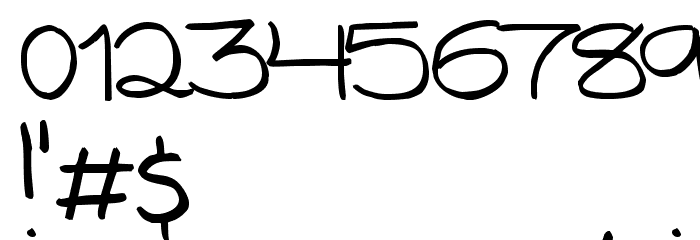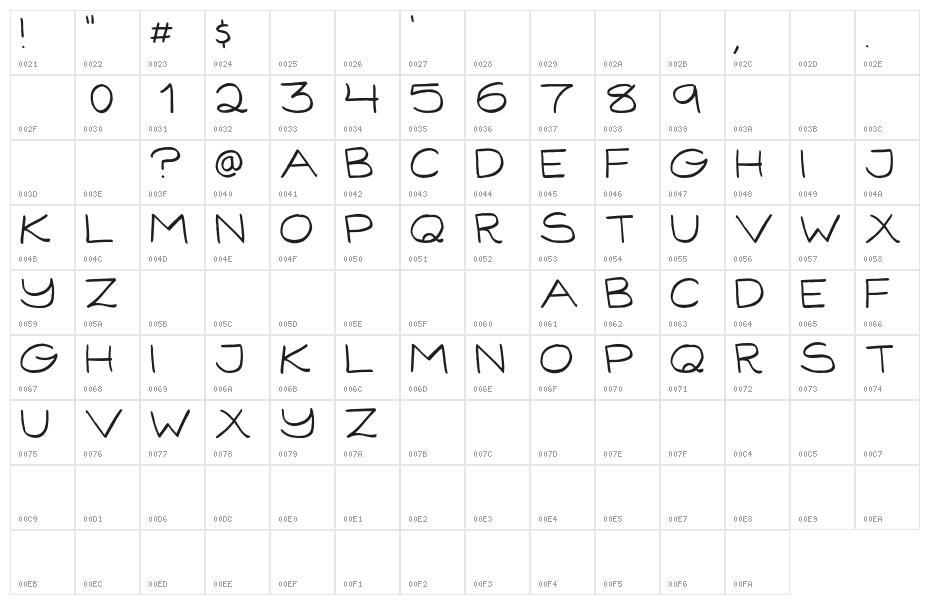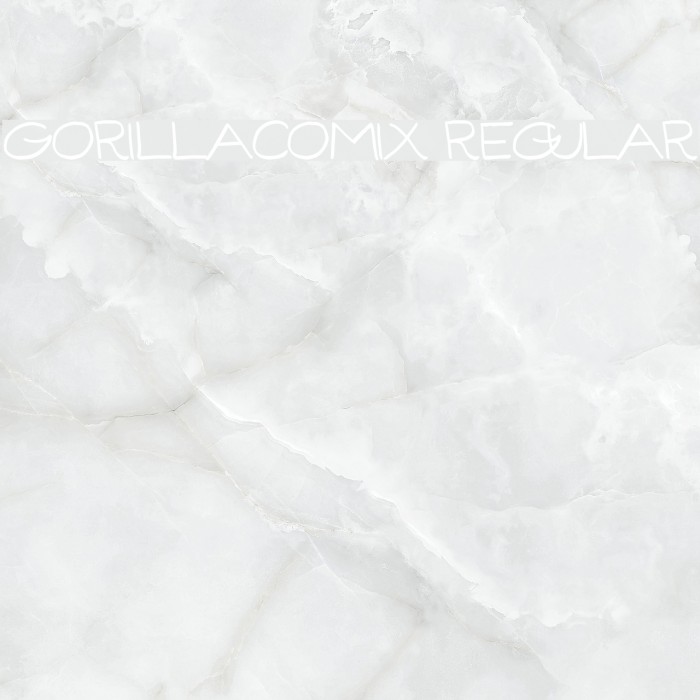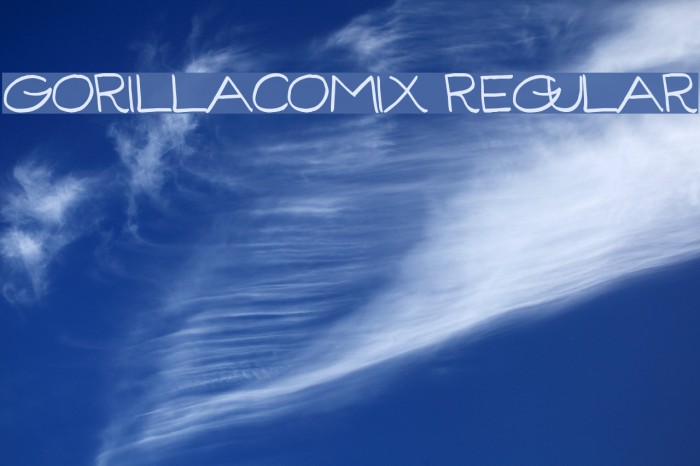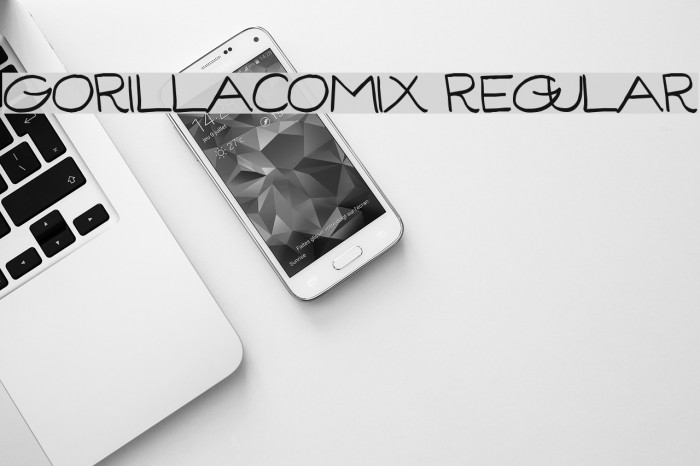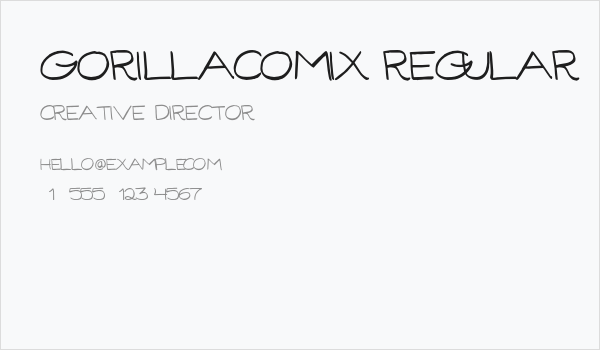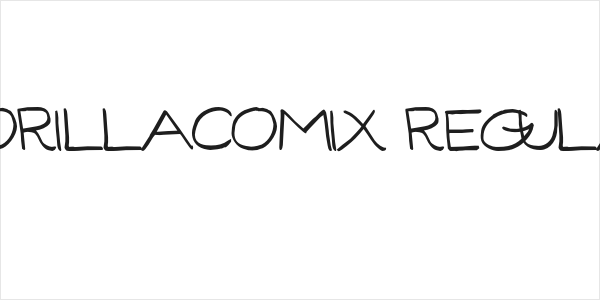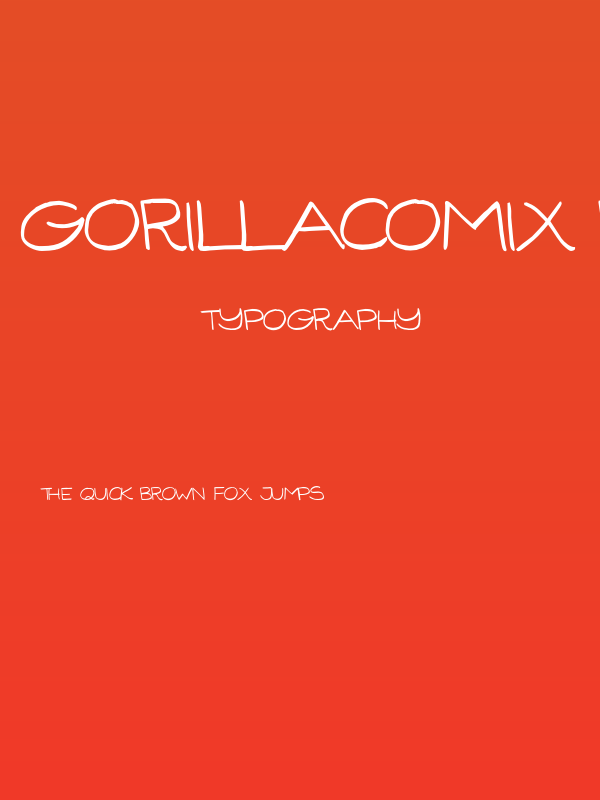
GorillaComix-Regular Font
GorillaComix-Regular Description
This playful and energetic font features a hand-drawn, comic-style appearance with irregular strokes and a casual vibe. The characters are bold and slightly uneven, giving them a lively and dynamic feel. The uppercase and lowercase letters maintain a consistent style, with rounded edges and a whimsical touch. Numbers and special characters follow the same playful design, making the font suitable for creative and informal projects. The overall look is approachable and fun, perfect for adding a touch of humor and personality to any design.
| Overall Style | Playful, Comic |
| Proposed Projects | Ideal for comic books, children's books, playful branding, and informal invitations. |